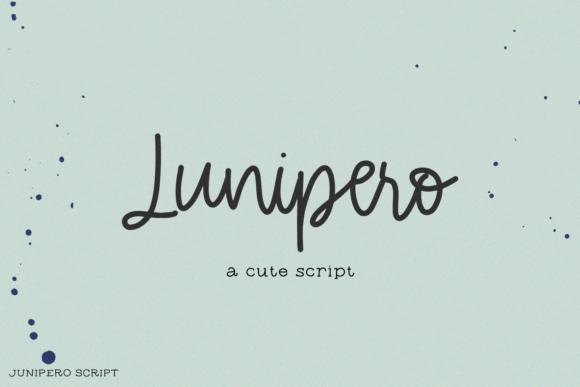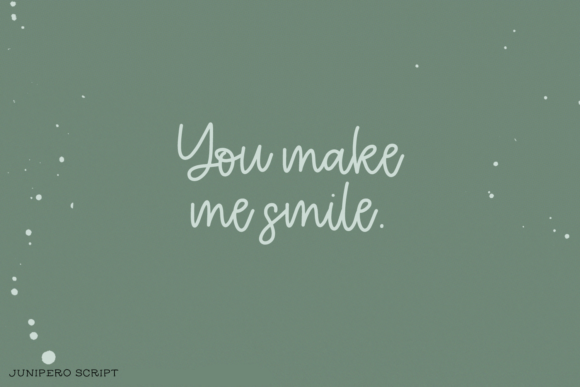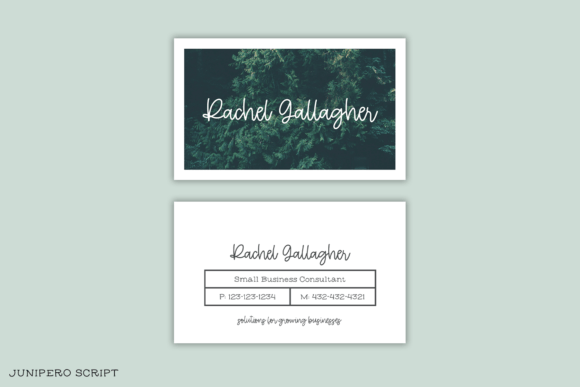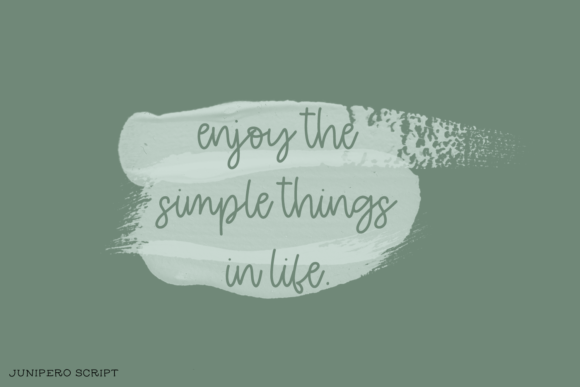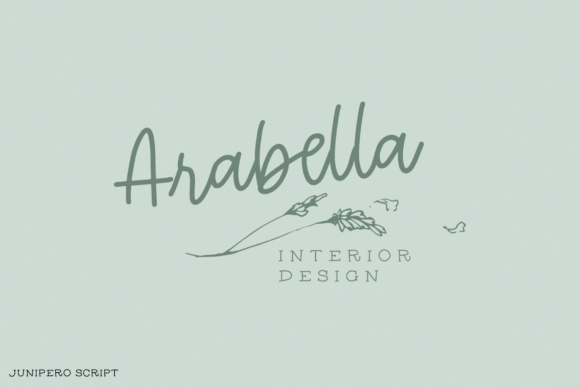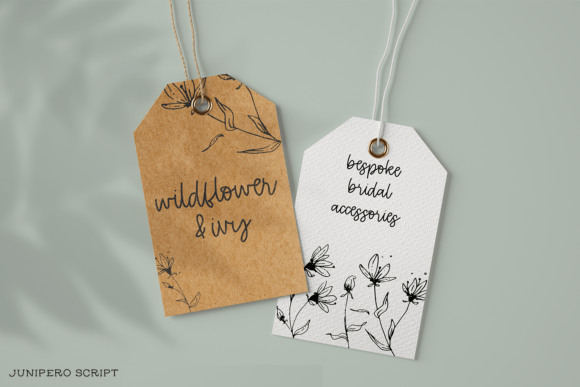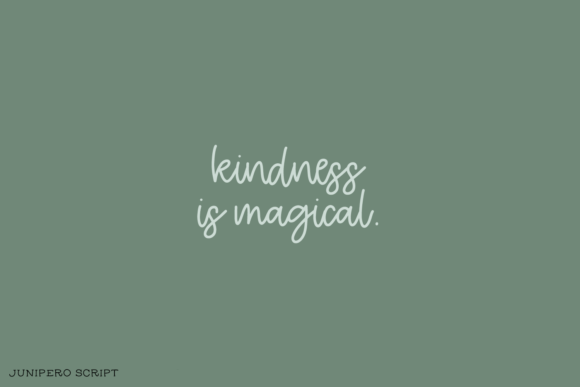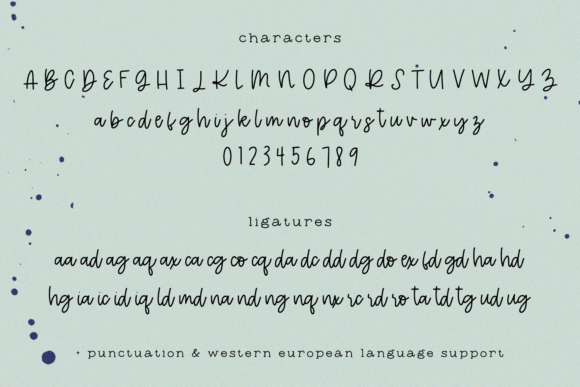
Junipero Font
**Junipero** is a charming and delicate handwritten font that exudes sweetness and joy. Its dainty and joyful nature makes it an ideal choice for designing wedding invitations, greeting cards, and any other project that requires a romantic and personalized touch. The font’s elegance and playfulness create a warm and inviting atmosphere, perfect for expressing love and affection in written form.
One of the key features of Junipero is its PUA encoding, which provides easy access to a wide variety of glyphs and ligatures. This feature allows designers to explore and utilize different letter combinations and decorative elements, enhancing the font’s versatility and creative possibilities. With access to these amazing glyphs and ligatures, designers can customize their designs with unique and personalized touches, making each project truly special and tailored to the intended audience.
Whether used in wedding invitations to convey romance and intimacy, or in greeting cards to express heartfelt messages, Junipero adds a personal and authentic touch to your designs. Its delicate and joyful demeanor makes it suitable for a wide range of romantic and celebratory occasions, evoking a sense of warmth and happiness.
In summary, Junipero is more than just a font; it’s a creative tool that allows designers to infuse their projects with a romantic and personalized feel. Its dainty and joyful handwritten style, combined with its PUA encoding, offers endless possibilities for creating unique and heartfelt designs. Embrace the sweetness of Junipero and let it add a touch of love and charm to your wedding invitations, cards, and other special designs.